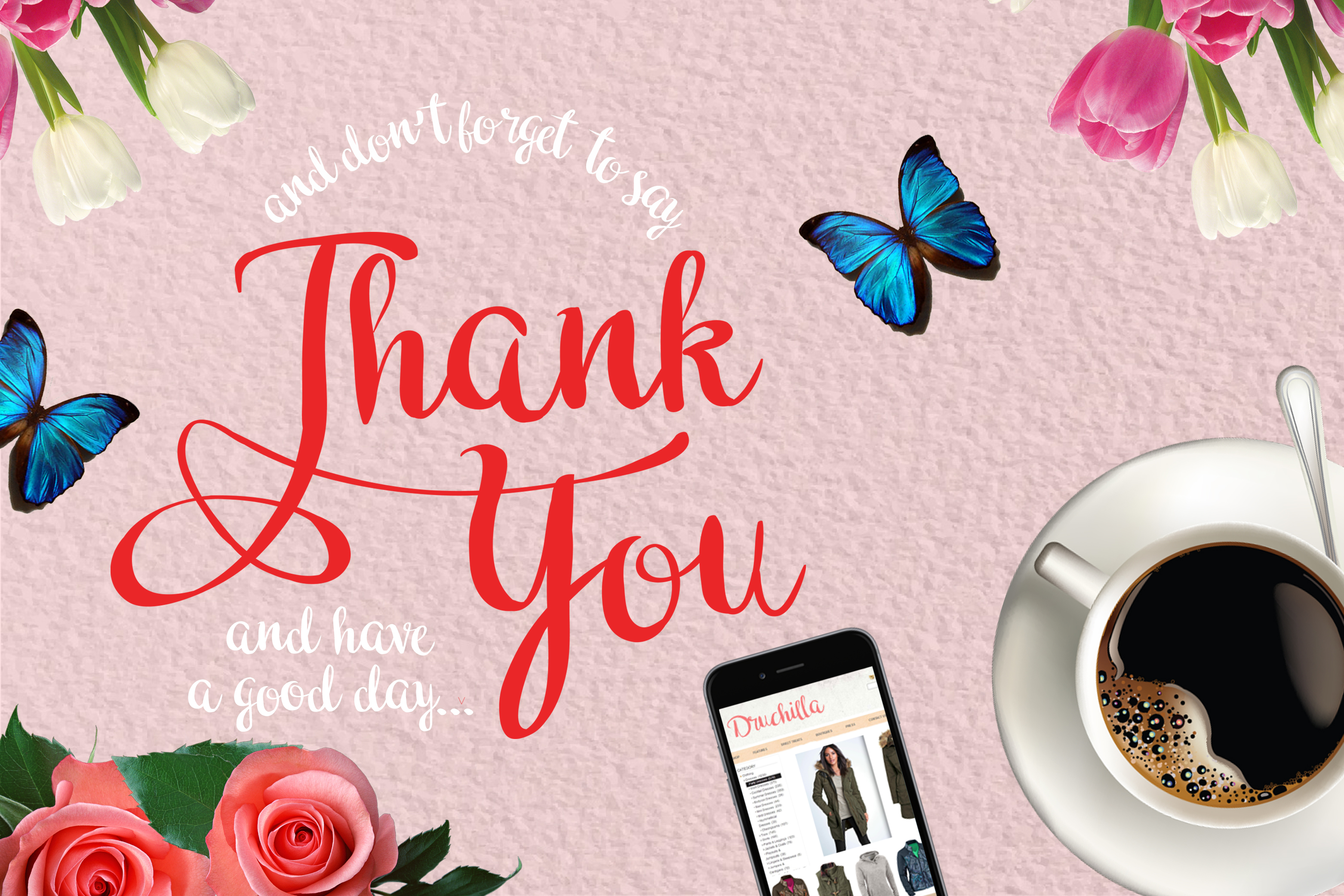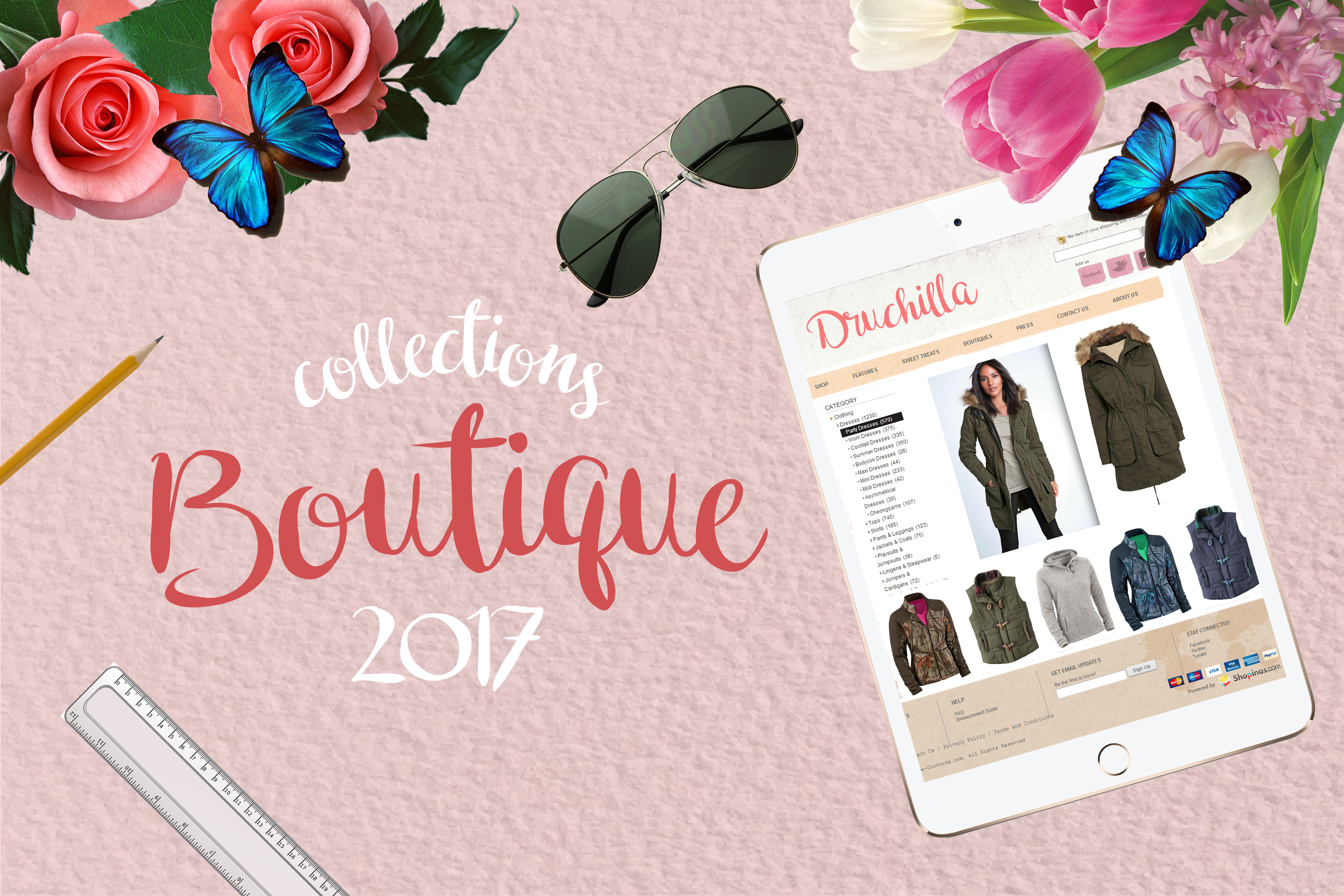
Druchilla Font: A Stunning Handwritten Font for Your Creative Projects
Are you looking for a unique and personal touch for your design projects? Look no further than the Druchilla Font, a stunning handwritten font created by madeDeduk. This beautiful font is packed with over 400 unique handmade glyphs, making it perfect for any type of project that requires a personal touch.
What is Druchilla Font?
Druchilla Font is a carefully crafted handwritten font that is designed to add a touch of elegance and sophistication to your designs. With over 400 unique glyphs, this font is perfect for creating beautiful and eye-catching text-based designs. Whether you’re working on a logo, branding project, or social media graphics, Druchilla Font is the perfect choice.
Features of Druchilla Font
- Over 400 unique handmade glyphs: Druchilla Font is packed with a wide range of glyphs, including letters, numbers, and punctuation marks. This means you can create complex and beautiful designs with ease.
- Handwritten with love and care: Each glyph in Druchilla Font has been carefully handcrafted by madeDeduk, giving the font a unique and personal touch.
Who is Druchilla Font perfect for?
Druchilla Font is perfect for a wide range of designers and crafters, including:
- Graphic designers: Druchilla Font is perfect for graphic designers who are looking for a unique and elegant font for their designs.
- Logotype designers: The font’s unique glyphs make it perfect for logotype designers who want to create a custom logo for their clients.
- Social media influencers: Druchilla Font is perfect for social media influencers who want to add a personal touch to their social media graphics.
- Crafters: The font’s handmade feel makes it perfect for crafters who want to add a personal touch to their craft projects.
Here are a few tips and tricks to help you get the most out of Druchilla Font:
- Experiment with different sizes: Druchilla Font looks great in a wide range of sizes, from small and delicate to large and bold.
- Mix and match glyphs: Druchilla Font’s unique glyphs make it perfect for mixing and matching to create complex and beautiful designs.
- Add a personal touch: Druchilla Font’s handmade feel makes it perfect for adding a personal touch to your designs.